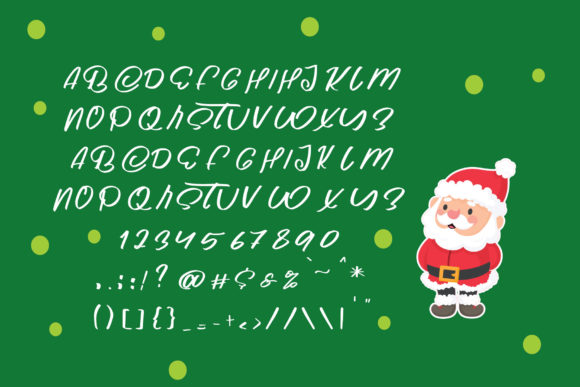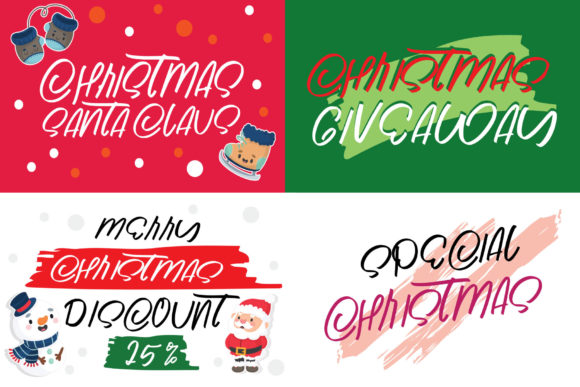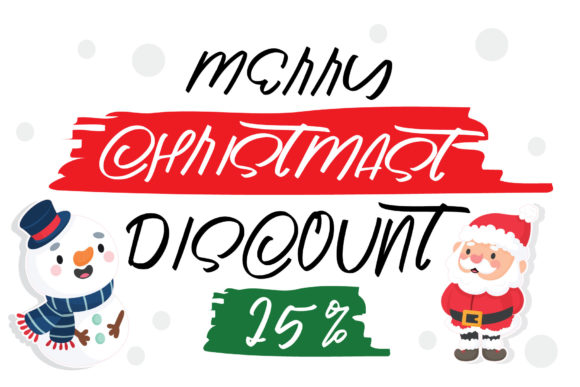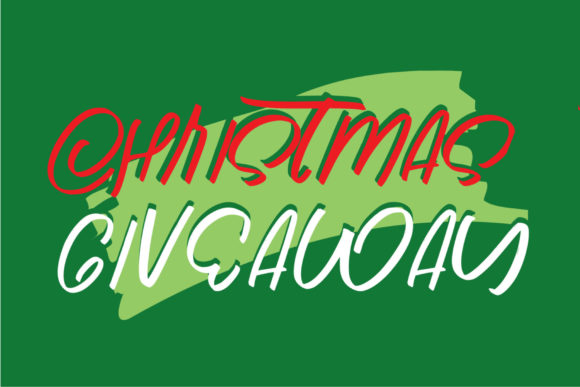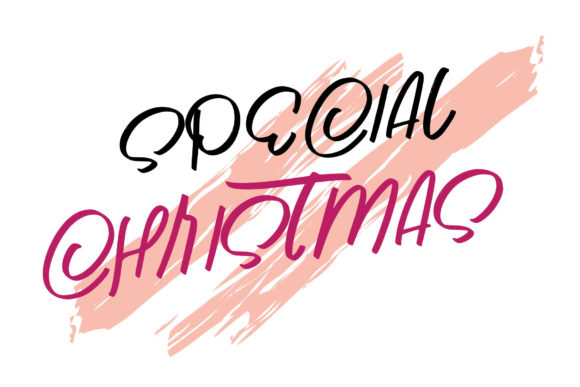
Introduction to Christmas Santa Claus Font
Christmas Santa Claus is a holiday-themed display font.
Sweet and friendly, this font will level up each of your Christmas letters and cards .
Key Features of Christmas Santa Claus Font
Why Choose Christmas Santa Claus Font?